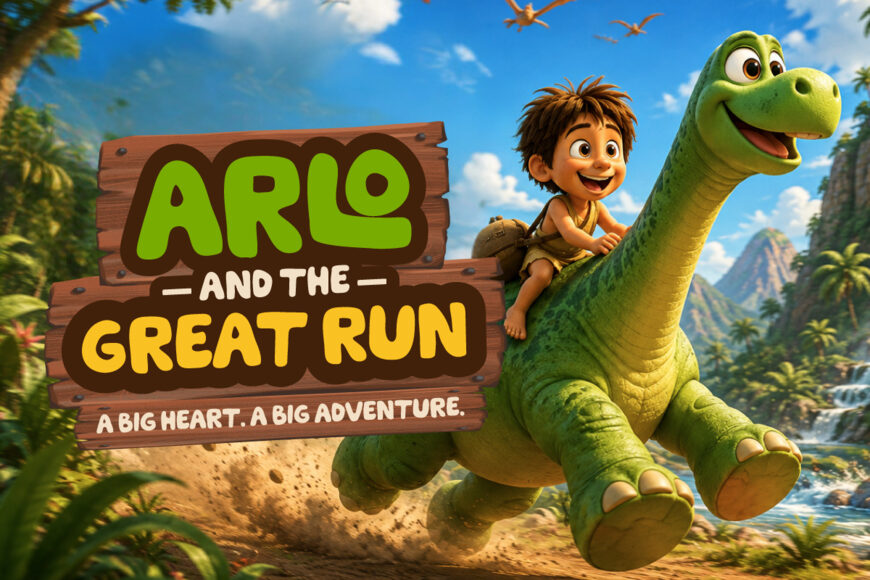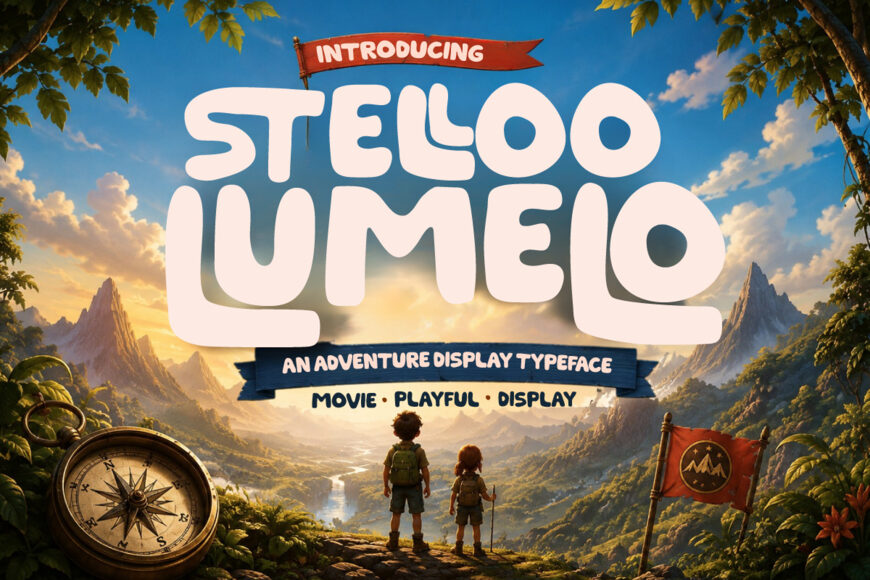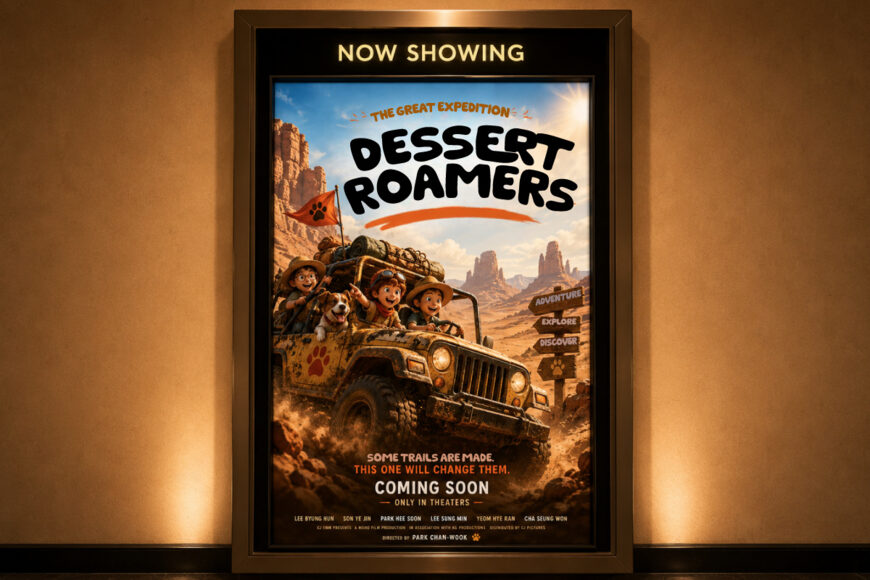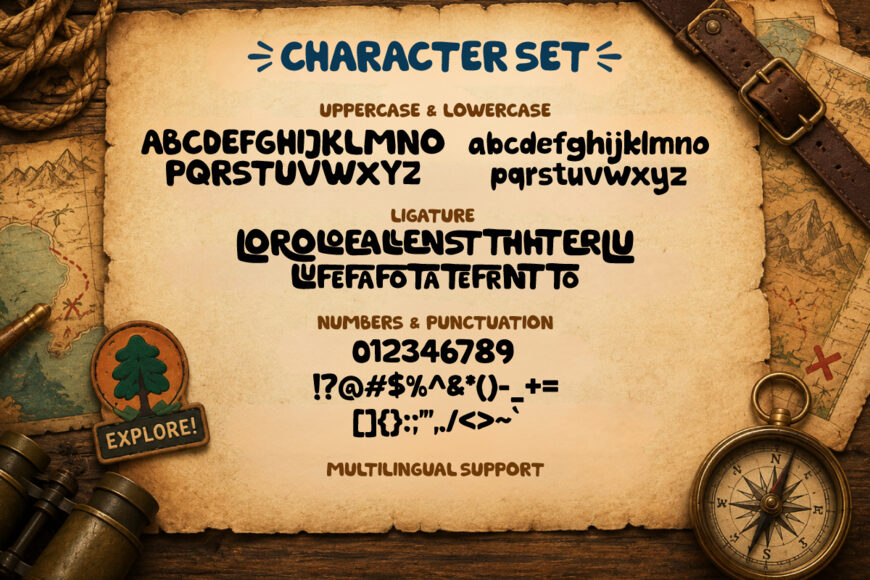
Stelloo Lumelo is a bold, playful display font created for children’s entertainment and cinematic designs. Its chunky, rounded, hand-drawn letters deliver a friendly, energetic look that grabs attention in titles, posters, headlines, and promotional graphics.
Ideal for animated adventures, family films, travel and nature documentaries, children’s books, YouTube thumbnails, merchandise, packaging, and themed branding, it brings a cheerful, imaginative spirit to every project.